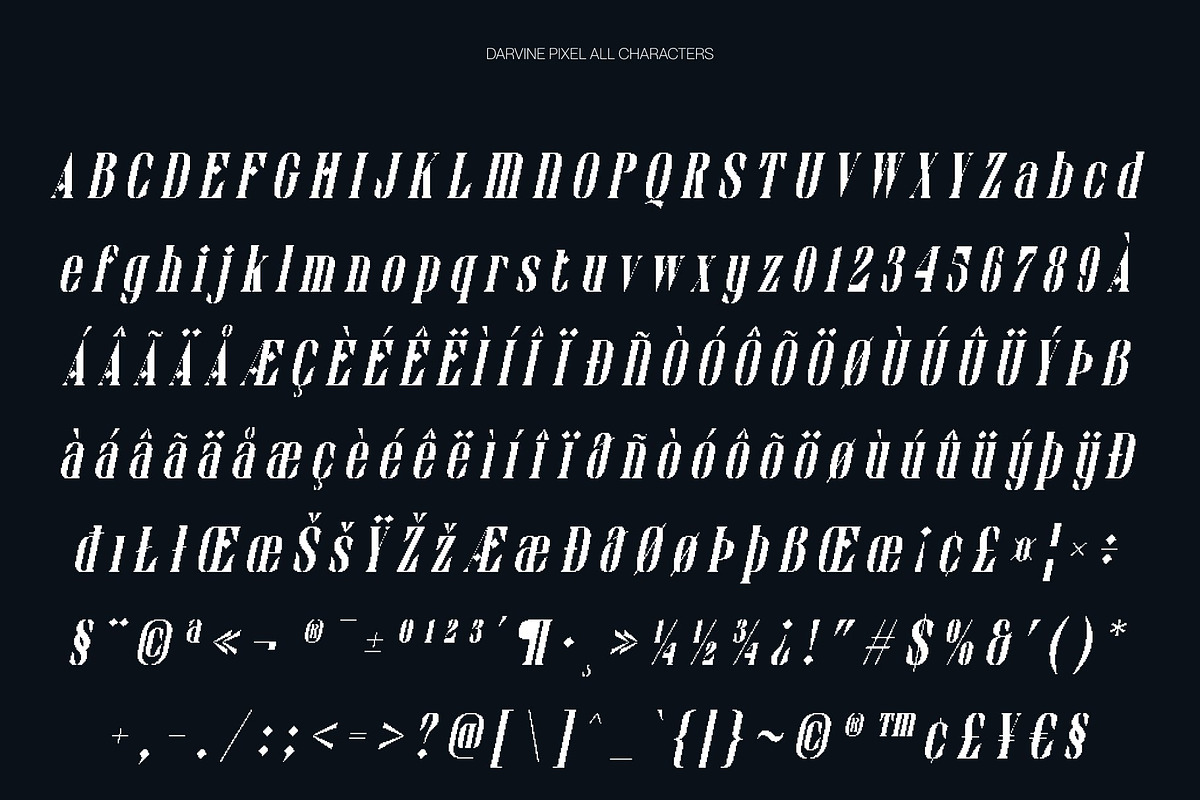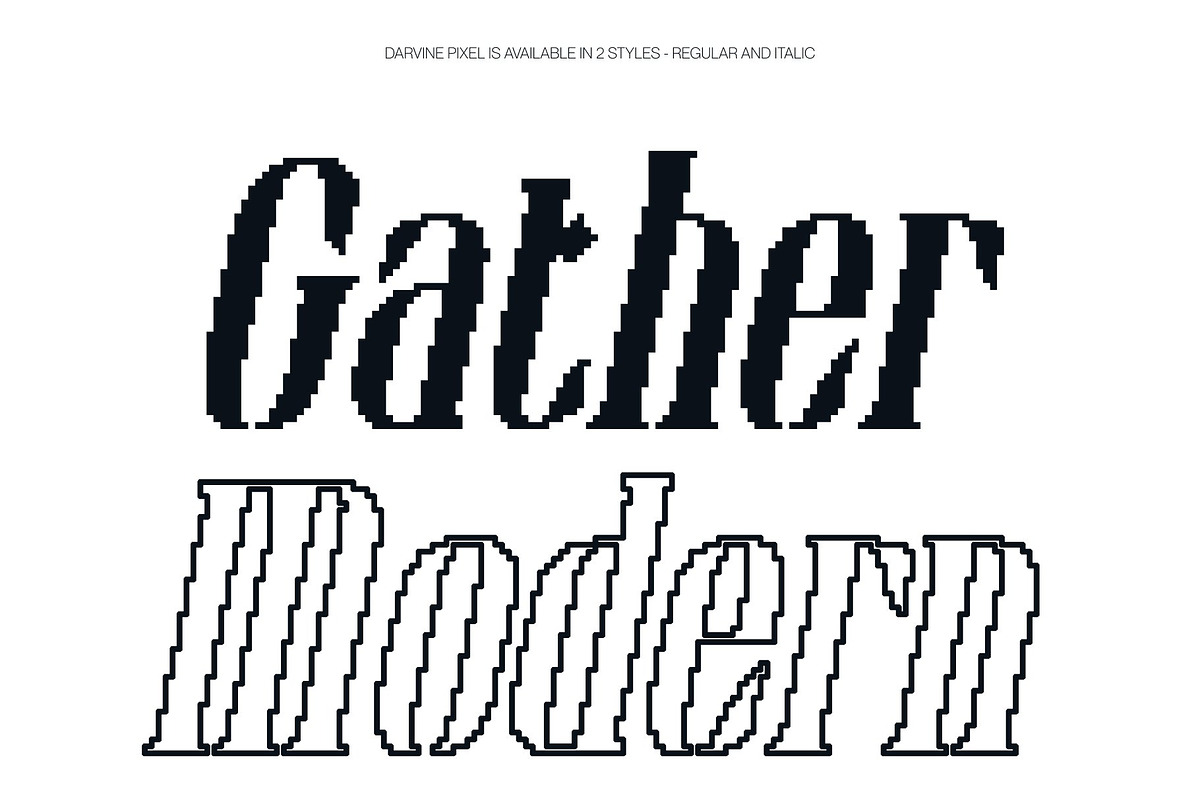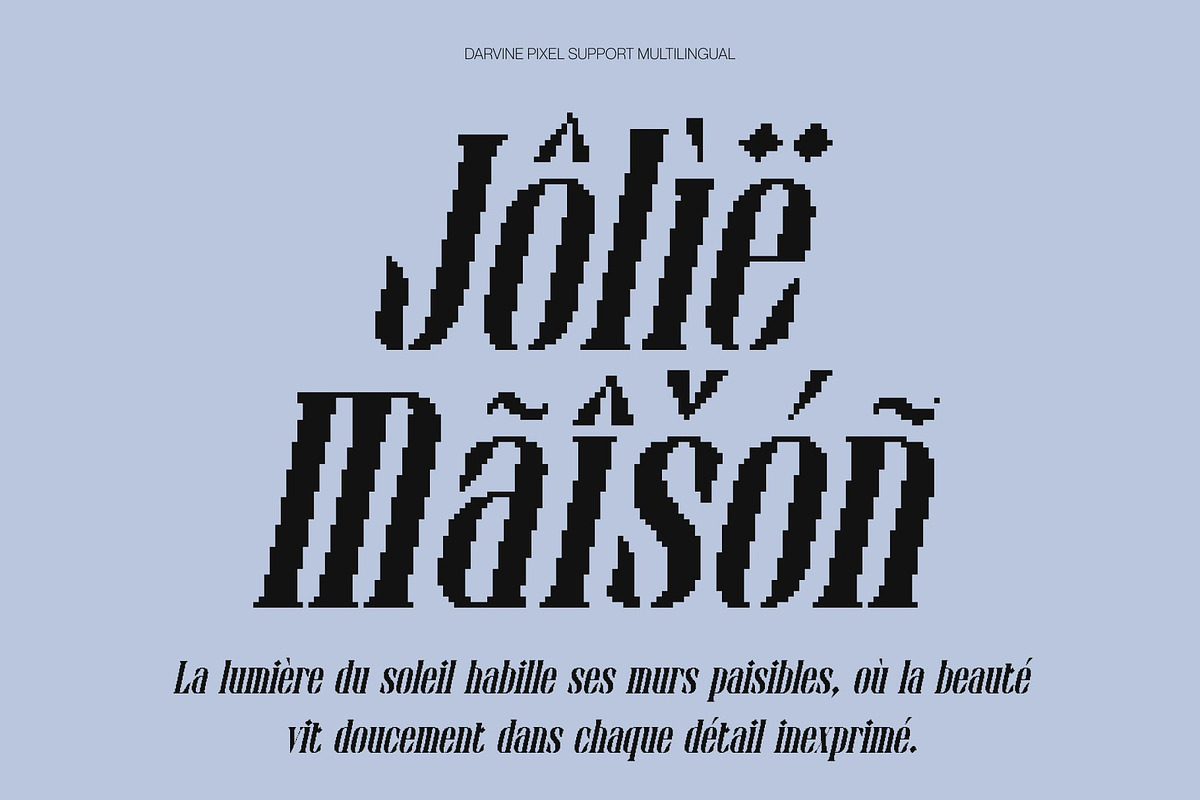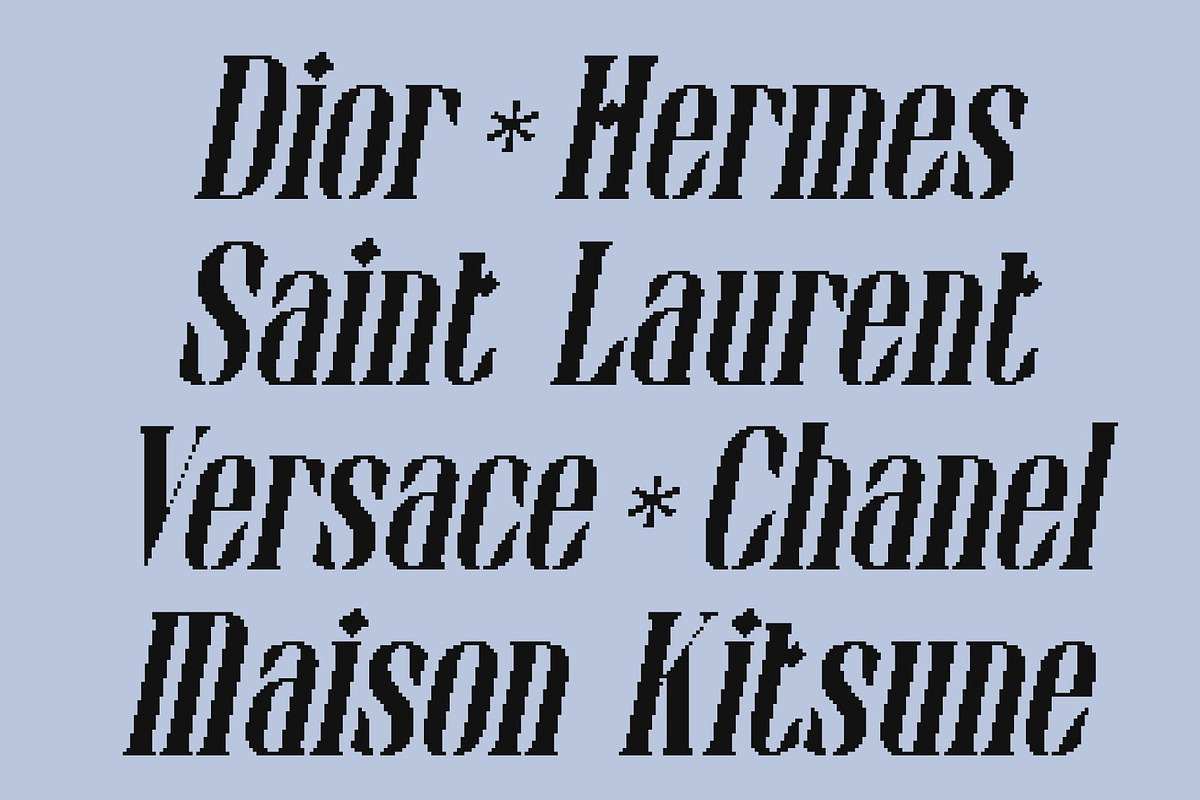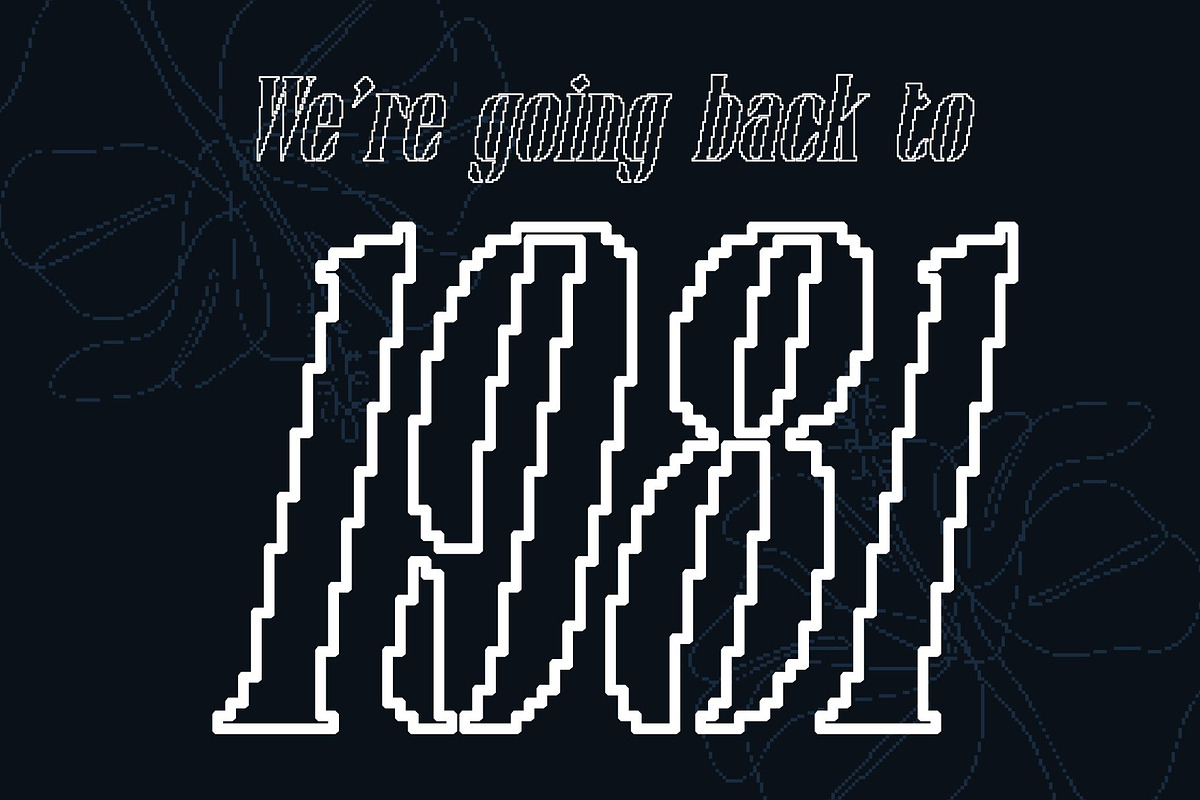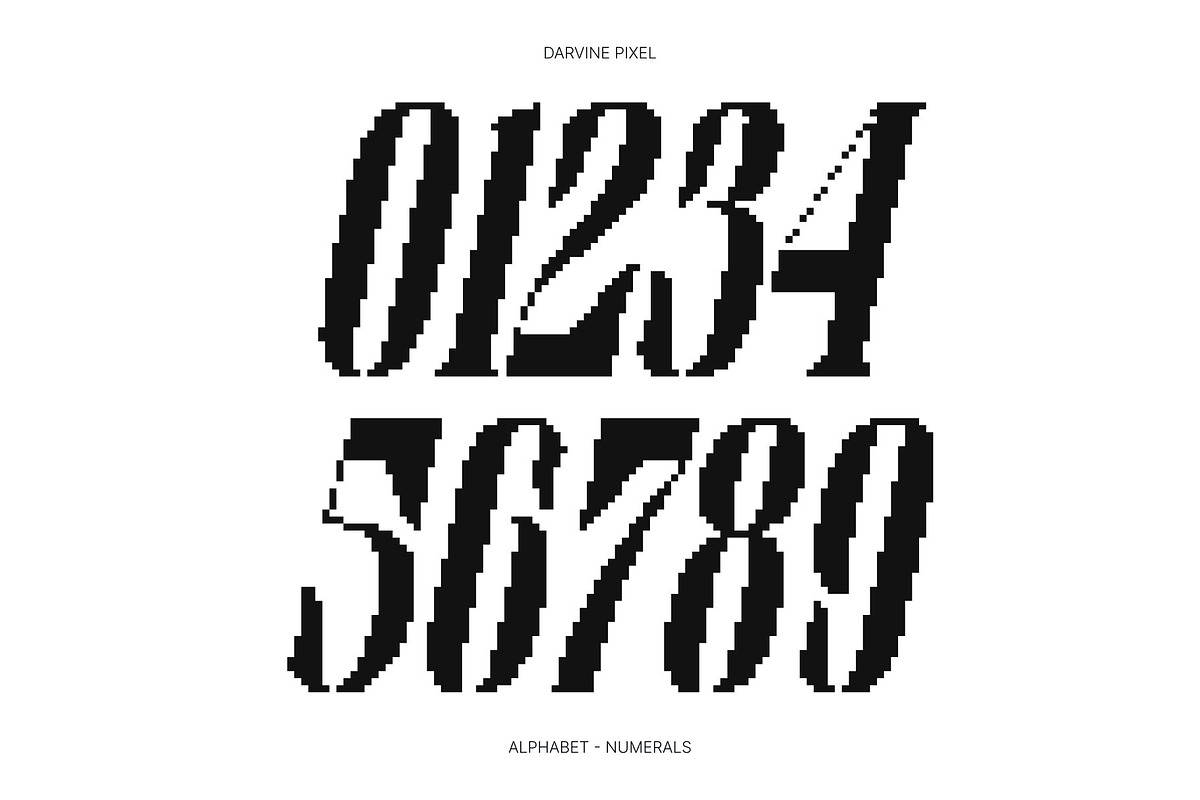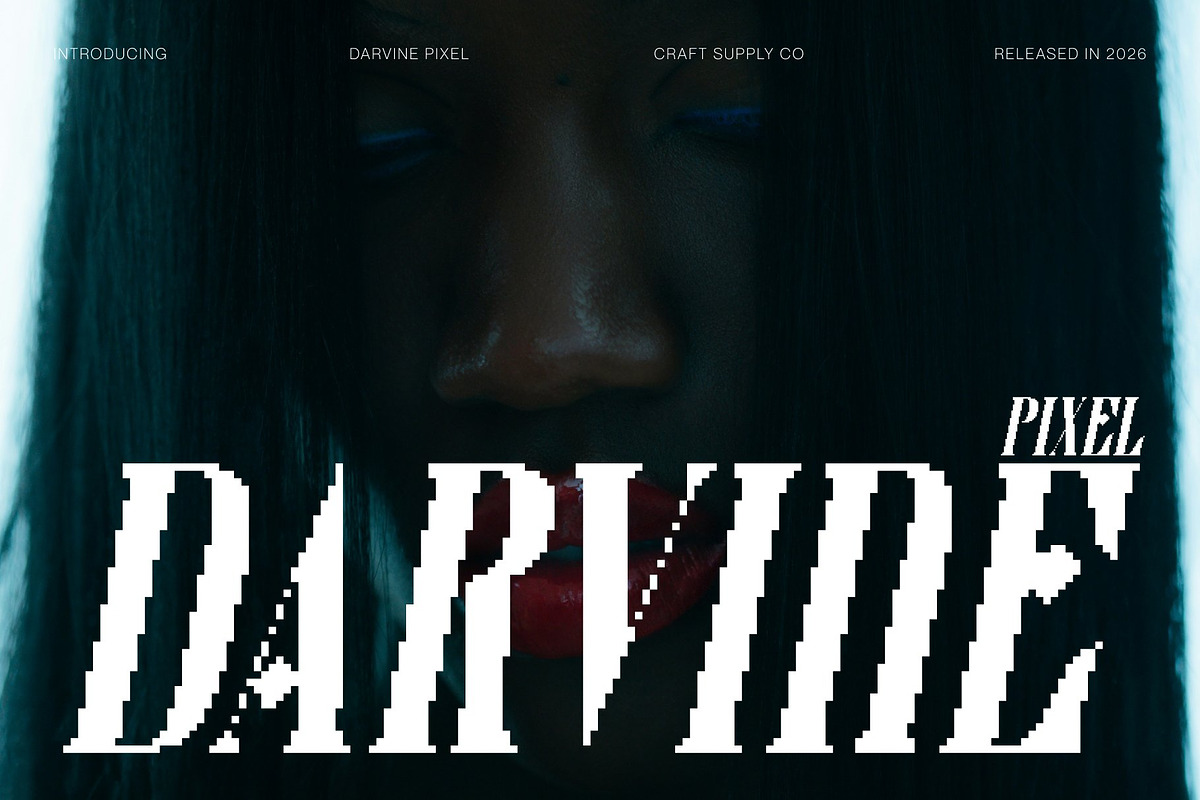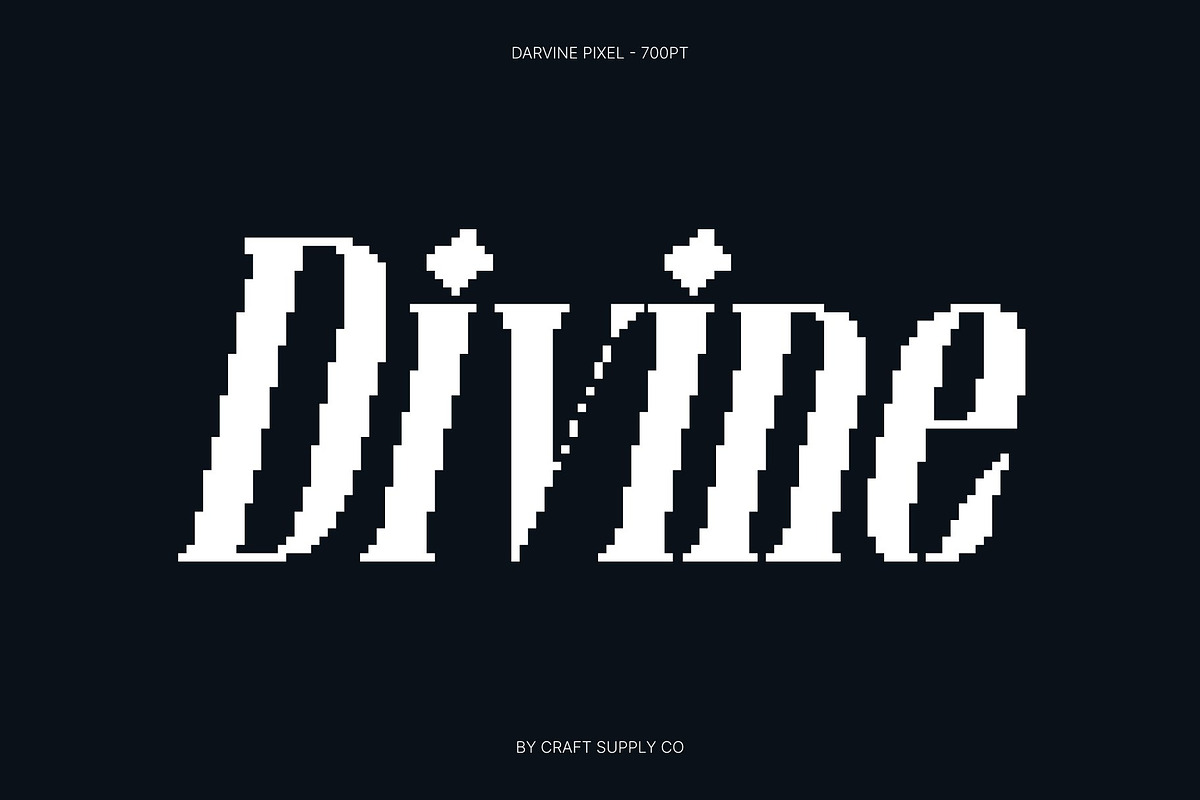
Darvine Pixel
Darvine Pixel – Elevate Your Display Typography Sleek and Contemporary Design This is a tall serif typeface that merges modern sophistication with a retro, pixelated charm. Its clean, structured lines and sharp corners create a sleek aesthetic, offering a distinctive blend of contemporary style and 8-bit nostalgia.
Perfect for Display Use Specifically designed for display purposes, this font excels in headlines, branding, and any context where attention-grabbing typography is needed. Its tall stature and precise pixel structure make it stand out, providing clarity and impact even at small sizes or in digital environments.
Versatile and Functional Despite its retro-inspired design, this is versatile across both digital and print media. Its rigid, bitmap-style construction ensures legibility while adding a playful, nostalgic edge to modern projects. From video games to tech-themed designs, this font adapts seamlessly to a wide range of creative applications.
A Must-Have Typeface This font is more than just a font it’s a designer’s essential tool for combining elegance with retro flair. Its tall, contemporary serif structure and pixelated aesthetic make it perfect for projects that require sophistication, style, and a touch of nostalgic charm. Elevate your display typography with this font and bring timeless digital personality to your designs.
- Darvine Pixel Regular
- Darvine Pixel Outline